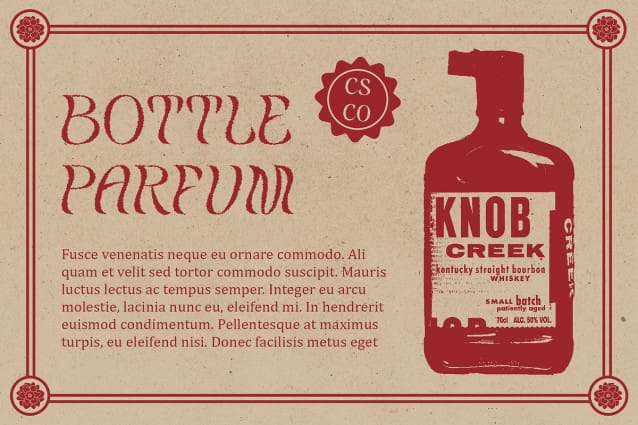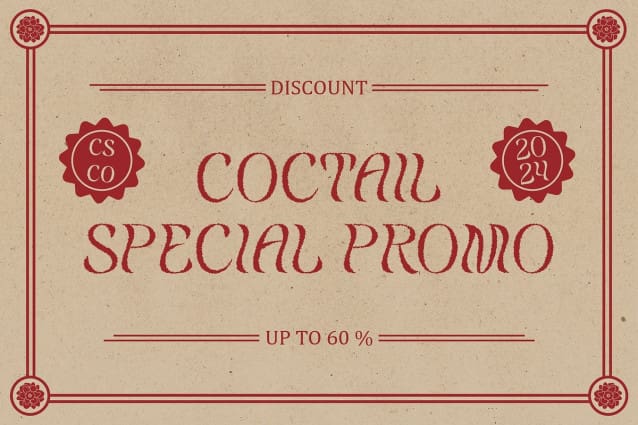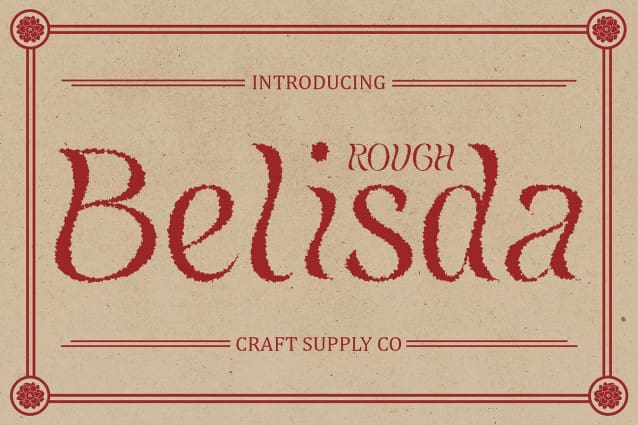
Belisda Rough Font
Belisda Rough Font: Vintage Display Font. Distinctive Flourishes Belisda Rough features intricate, flowing curves reminiscent of ornate floral motifs. Its elaborate design adds a touch of elegance and sophistication to any display project.
Rustic Charm with Rough Effects The rough texture of This font enhances its vintage appeal, giving it a weathered and distressed look. This rustic charm adds character and authenticity to your designs.
Perfect for Vintage Vibes Tailored for projects seeking a vintage aesthetic, This font excels in evoking nostalgic feelings. It’s ideal for retro-themed designs, antique-inspired branding, and vintage signage.
Versatile Usage Despite its ornate appearance, This font offers versatility in application. Whether used in print or digital media, it lends a unique flair to logos, headlines, posters, and more.
Embrace Vintage Elegance This font embodies the timeless beauty of vintage typography with its intricate flourishes and rough texture. Perfect for projects requiring a touch of nostalgia, it adds a sense of charm and authenticity to any design. Embrace the elegance of the past with This font.